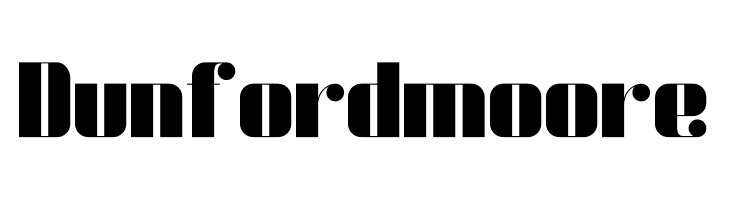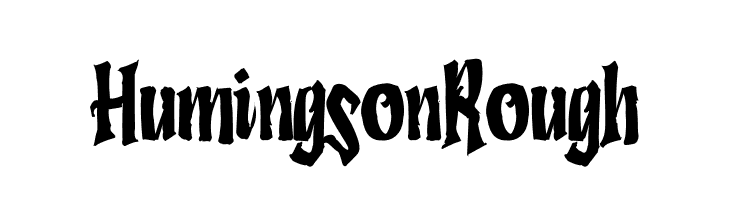
A bold, italic font with sharp, angular edges and dynamic style.
A bold, outlined font with a playful, geometric style.
A bold, angular font with a modern and edgy style.
A decorative floral dingbat set with varied flower motifs.
A playful, jagged outline font with a rugged, dynamic appearance.
A bold, italicized font with a jagged, broken effect for a dynamic and edgy look.
A bold, jagged font with a unique, edgy appearance.
A bold, decorative font with characters made from intricate text patterns.
A decorative font with characters made from smaller text elements, offering a bold and textured look.
A bold, playful font with a dotted pattern and rounded characters.
A playful, hand-drawn font with characters enclosed in hanging frames.
A bold, graffiti-inspired font with splatter effects for a dynamic look.
A bold, distressed font with a rugged and textured appearance.
A bold, decorative font with a punk-inspired cross pattern.
A bold, flowing script font with elegant curves and dynamic slant.
A bold, playful script font with a handwritten, flowing style.
A bold, dynamic script font with a handwritten style.
A bold, dynamic script font with thick, rounded strokes and tight spacing.
A bold, playful handwritten font with a casual and dynamic style.
A playful, bubbly font with rounded, hand-drawn characters.
A bold, angular font with a modern, edgy style.
A pixelated, retro-style font with a blocky, geometric design.
A playful, bold font with rounded edges and a whimsical style.
A playful, cartoon-like font with bold, expressive characters.
A playful, bold, and hand-drawn font with a whimsical touch.
A bold, playful font with a hand-drawn, whimsical style and uneven strokes.
A playful, bold font with rounded, chunky letters.
A bold, angular font with a geometric and modern style.
A bold, geometric typeface with sharp angles and clean lines.
A pixelated, grid-like font with a retro digital aesthetic.
A modern, geometric set of directional arrow symbols in circles and squares.
A decorative font featuring bold arrow symbols in circular and square borders.
Ornamental dingbat font with mandala and floral motifs.